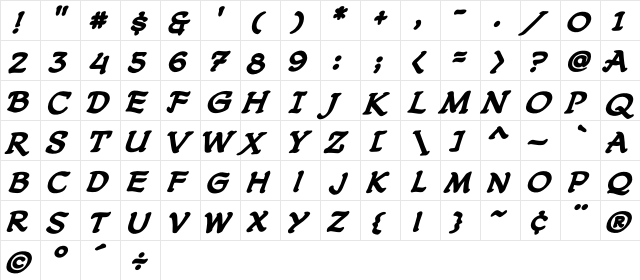
CCDreamland Regular
Design Context for CCDreamland Typeface
CCDreamland offers clean, dependable letterforms without strong stylistic allegiance, making it a practical choice for designers who need flexibility.
Pro Tip: Use CCDreamland in both headline and body roles to test its range before committing to a single application.